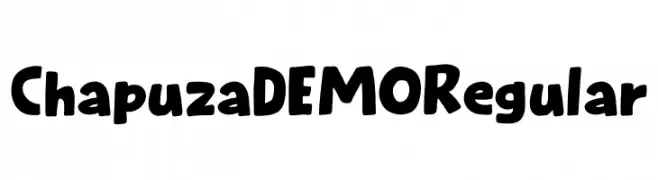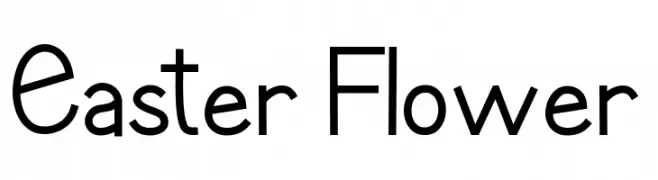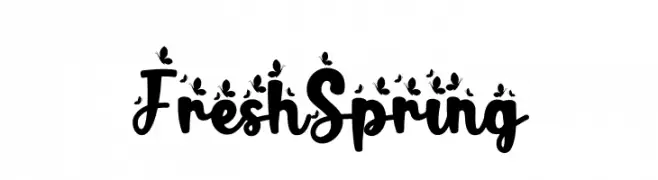
( Fonts by Kong Font )
A bold, playful font with bunny ears on each letter, perfect for whimsical designs.
( Fonts by D K )
A playful, bold font with rounded, hand-drawn characters.
( Fonts by Misti's Fonts )
A playful, bold font with rounded edges and a friendly appearance.
( Fonts by Galdino Otten Fonts )
A playful, bold font with a comic-like, hand-drawn style.
( Fonts by Galdino Otten Fonts )
A bold, italic, comic-style font with a playful and dynamic appearance.
( Fonts by Galdino Otten Fonts )
A playful, handwritten font with a bold, rounded style and slight slant.
( Fonts by Galdino Otten Fonts )
A playful, rounded font with a whimsical and informal style.
( Fonts by Kong Font )
A bold, playful font with a chunky, whimsical design perfect for fun projects.
( Fonts by AEN Creative Studio )
A playful, modern font with rounded characters and subtle decorative elements.
( Fonts by PutraCetol Studio )
A playful, decorative font with leaf accents and a whimsical script style.